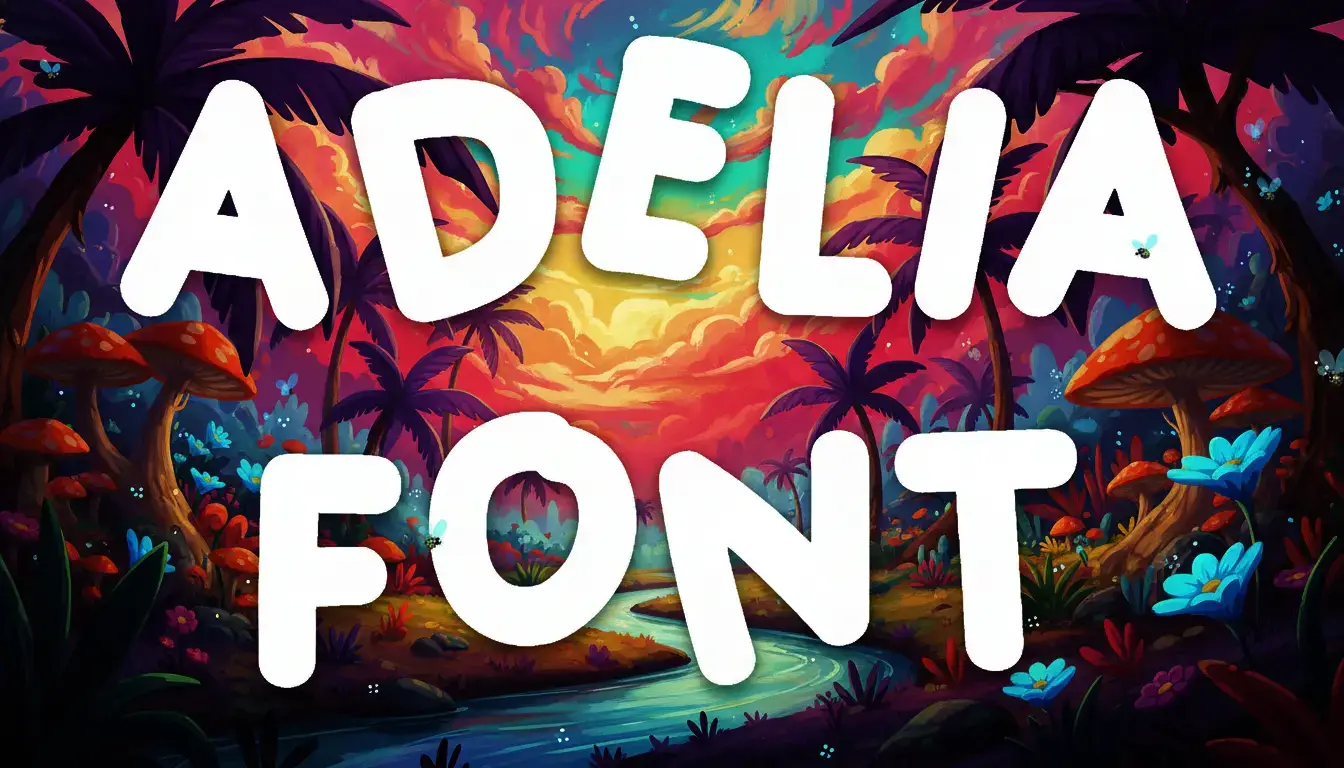
Adelia is a popular, bold, and playful display typeface designed by Fanastudio. Categorized under the “Fancy > Cartoon” genre on major platforms, it is highly recognizable for its heavy, rounded, and slightly asymmetrical letterforms that inject a cheerful energy into creative designs.
Adelia is a cartoon font made by Fahri Rizal.
- Designer: Fahri Rizal